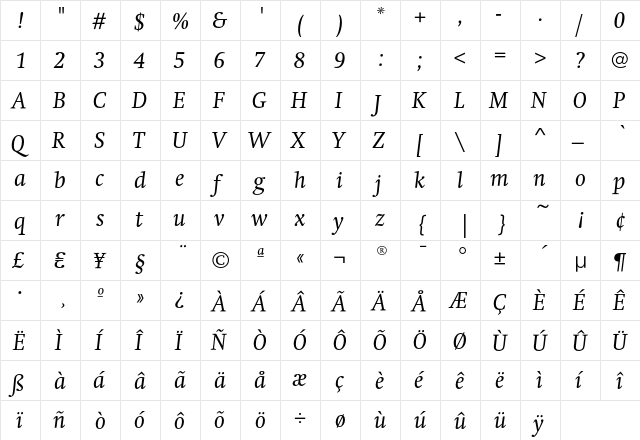
HeidelbergAntiqua BoldItalic Font Preview
Design Context for HeidelbergAntiqua Typeface
HeidelbergAntiqua offers clean, dependable letterforms without strong stylistic allegiance, making it a practical choice for designers who need flexibility. Its italic angle brings a sense of urgency and motion to the letterforms. The heavy weight commands attention and anchors typographic hierarchies.
Pro Tip: Try HeidelbergAntiqua for annotation and caption copy alongside an upright companion — the contrast in angle creates a dynamic but ordered typographic system.